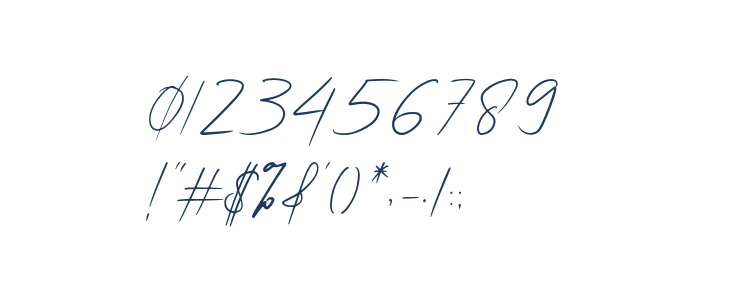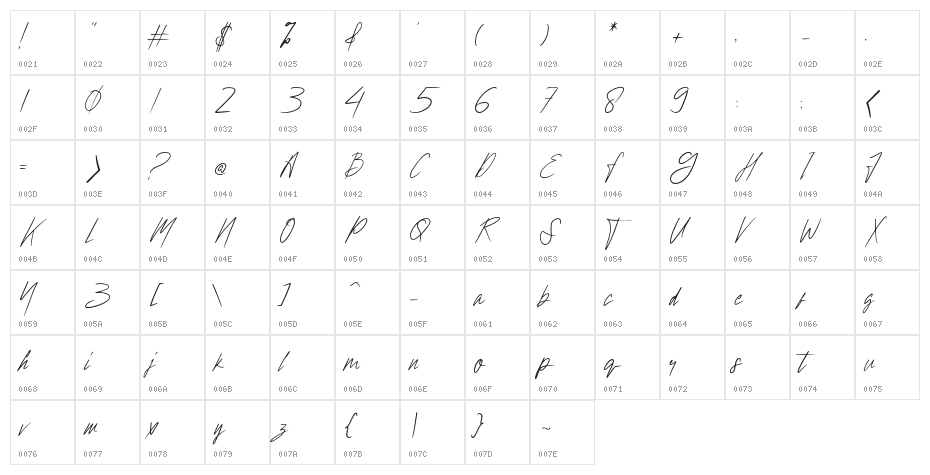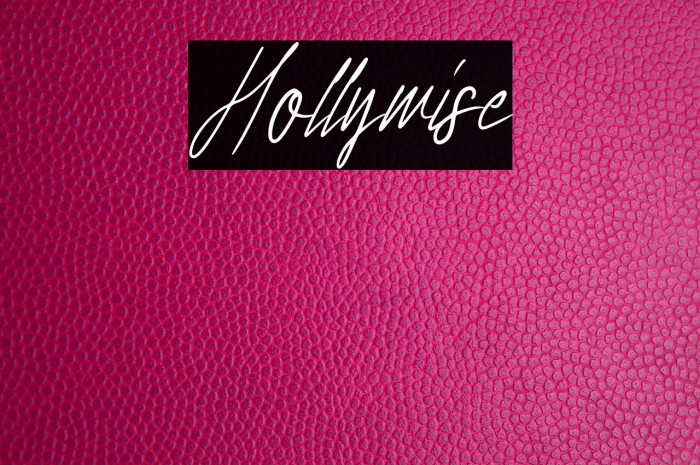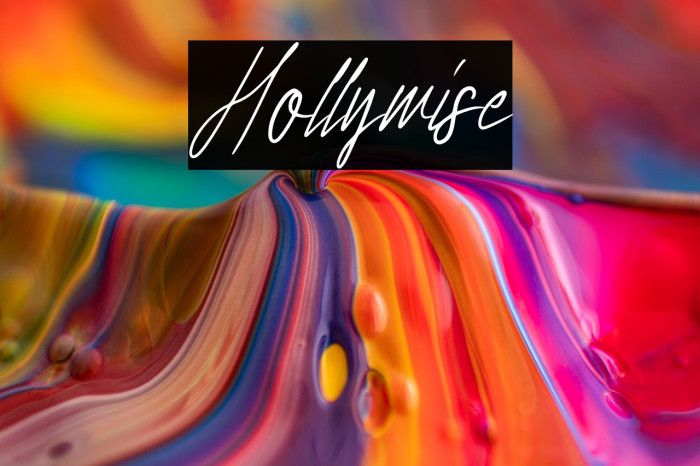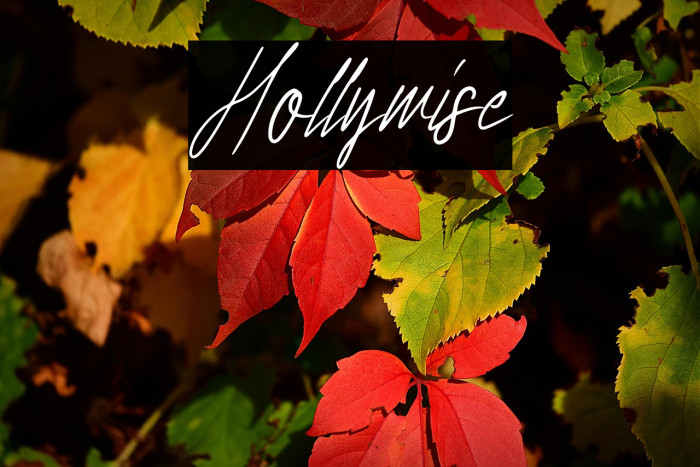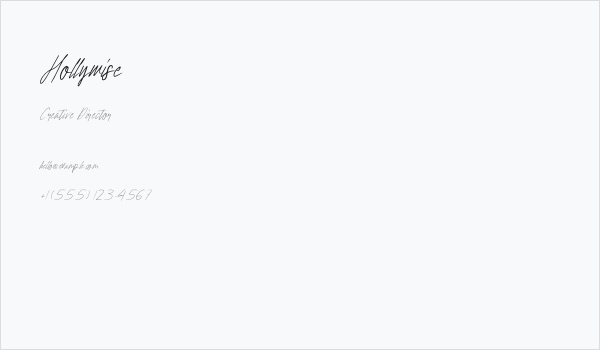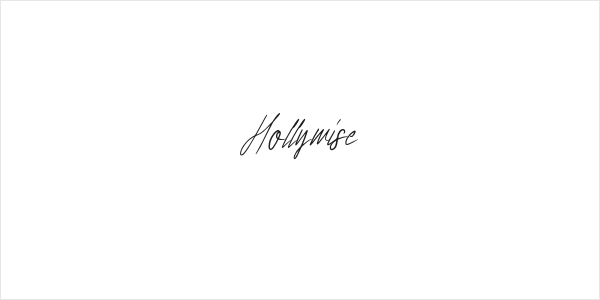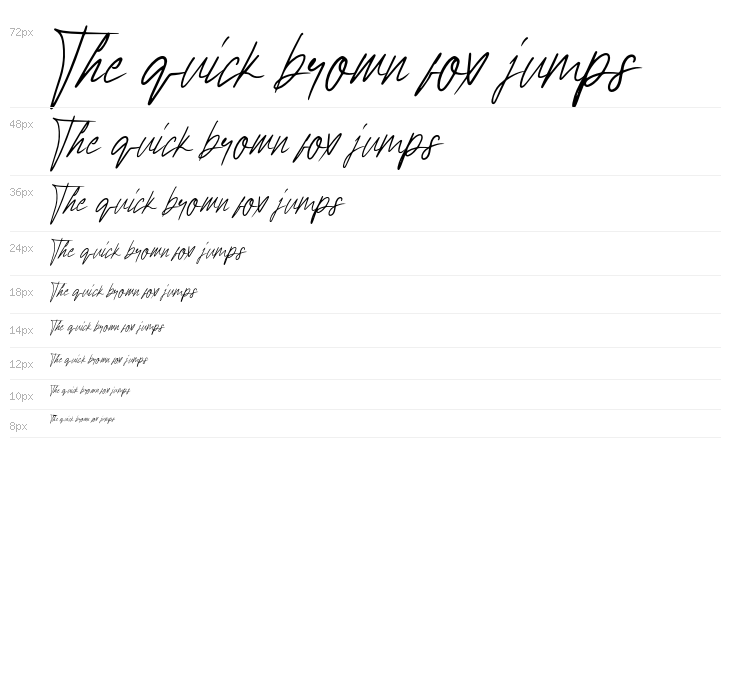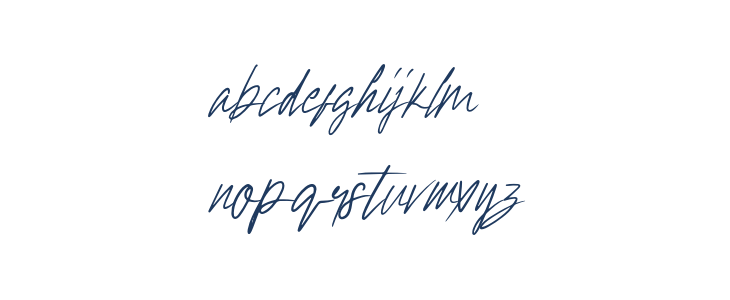
Hollywise Font
Hollywise Description
This font exudes a dynamic and expressive handwritten style, characterized by its fluid and cursive letterforms. The strokes are varied in thickness, giving it a lively and spontaneous appearance. The uppercase letters are tall and slightly slanted, while the lowercase letters maintain a consistent flow, enhancing readability. Numbers and special characters follow the same energetic style, making them blend seamlessly with the alphabet. This font's overall aesthetic is both elegant and informal, making it versatile for various creative applications.
| Use Case | Logos, Invitations, Personal Branding |
| Proposed Projects | Ideal for wedding invitations, personal branding, greeting cards, and creative projects that require a personal touch. |